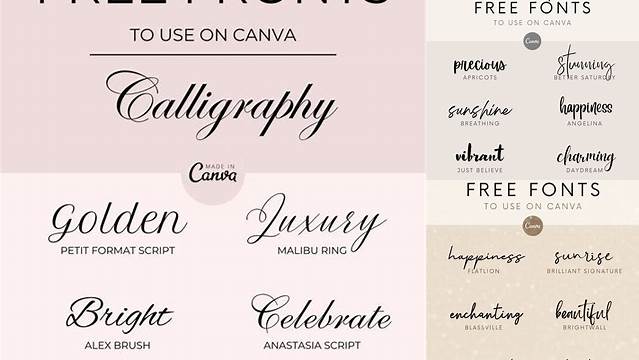
Free Calligraphy Fonts: The Best On Canva For Stunning Designs
Hey guys! Are you looking to add a touch of elegance and personality to your designs? Calligraphy fonts are a fantastic way to do just that. And guess what? Canva, the super user-friendly design platform, offers a ton of amazing free calligraphy fonts. But with so many options, it can be a bit overwhelming to choose the perfect one. That's why I've put together this guide to help you discover the best free calligraphy fonts on Canva for your next project.
Why Use Calligraphy Fonts?
Before we dive into specific fonts, let's quickly talk about why calligraphy fonts are so awesome. Calligraphy fonts, with their flowing lines and elegant curves, can instantly elevate your designs. They add a sense of sophistication, creativity, and artistry that's hard to achieve with standard fonts. Whether you're designing wedding invitations, social media graphics, logos, or anything in between, calligraphy fonts can make your text stand out and capture attention. They evoke a sense of tradition and craftsmanship, while also injecting a personal and unique flair to your projects.
Calligraphy fonts are incredibly versatile. Depending on the style, they can convey different moods and feelings. A delicate, flowing script is perfect for romantic or feminine designs, while a bolder, more dramatic calligraphy font can add a touch of strength and sophistication. Calligraphy fonts are also excellent for adding emphasis to specific words or phrases. Imagine using a beautiful script font to highlight the names on a wedding invitation or to draw attention to a key message in a promotional graphic. The possibilities are truly endless. Furthermore, the use of calligraphy fonts can help you create a cohesive and visually appealing design. When used thoughtfully, they can tie together different elements of your design and create a harmonious overall look. They can complement other design elements, such as images, colors, and shapes, to create a visually stunning final product. For instance, pairing a modern sans-serif font with a classic calligraphy font can create a striking contrast that is both eye-catching and balanced. This interplay of different font styles adds depth and interest to your design, making it more engaging for your audience.
Top Free Calligraphy Fonts on Canva
Okay, let's get to the good stuff! I've rounded up some of the best free calligraphy fonts Canva has to offer. These fonts are all available for free within Canva, so you can start using them in your designs right away. I've tried to include a variety of styles, so you're sure to find something you love. Remember, the best font for your project will depend on the specific look and feel you're going for, so feel free to experiment and see what works best.
1. Great Vibes
Great Vibes is a classic calligraphy font that exudes elegance and sophistication. With its flowing strokes and graceful curves, it's perfect for wedding invitations, greeting cards, and any design that needs a touch of refinement. This font features beautiful connections between letters, giving it a natural and handwritten feel. It strikes a balance between formality and approachability, making it a versatile choice for a wide range of projects. Whether you are designing a romantic-themed graphic or crafting a sophisticated logo, Great Vibes can add a touch of class and style. The consistent rhythm and elegant flourishes make it easy to read and visually appealing, ensuring your message is delivered with grace and clarity. Great Vibes is also excellent for adding a personal touch to your projects. Its handwritten style gives it a human feel, making it ideal for invitations, thank-you notes, and other personalized items. The font’s inherent charm makes it stand out, while its readability ensures your message is not lost in overly stylized lettering. This blend of personality and functionality is what makes Great Vibes a standout choice among calligraphy fonts. Moreover, its versatility allows it to pair well with other fonts, giving you the flexibility to create unique and dynamic designs. You can combine Great Vibes with a clean sans-serif font for a modern look or use it with a serif font for a more traditional feel. This adaptability makes it a valuable asset in your design toolkit, suitable for numerous applications and creative expressions.
2. Pacifico
If you're after a more casual and playful vibe, Pacifico is an excellent choice. This font has a retro, surf-inspired feel that's perfect for logos, posters, and social media graphics. Its rounded letterforms and flowing script evoke a sense of fun and relaxation, making it ideal for projects that aim to create a laid-back atmosphere. Pacifico’s friendly demeanor is particularly well-suited for designs targeting a younger audience or projects with a lighthearted theme. The font’s design is inspired by the 1950s American surf culture, lending it a vintage charm that is both nostalgic and trendy. This makes it a great option for designs that want to tap into a retro aesthetic or capture the spirit of the beach and summer. Pacifico's casual nature doesn't compromise its legibility; it remains easy to read even at smaller sizes, which is essential for various design applications. It stands out in headlines and logos, while also being practical for body text in posters and brochures. The balanced letter spacing and clear forms ensure that your message is conveyed effectively without sacrificing the font's playful character. Additionally, Pacifico's versatility extends to digital and print media, making it a reliable choice for a wide range of projects. Whether you're designing a website banner, a flyer, or a social media post, Pacifico can bring a touch of whimsy and personality to your work. Its distinct style ensures that your design will stand out, capturing attention and creating a memorable impression. By choosing Pacifico, you're not just selecting a font; you're choosing a mood and a style that resonates with your audience and enhances your brand's identity.
3. Yellowtail
Yellowtail is a beautifully crafted script font that combines vintage charm with modern appeal. It features a mix of thick and thin strokes, giving it a dynamic and eye-catching look. This font is great for logos, headings, and invitations where you want to make a statement. The flowing curves and elegant loops of Yellowtail add a touch of sophistication, while its slightly condensed form makes it suitable for both print and digital designs. Yellowtail is particularly effective when used in branding projects, as it helps to create a memorable and distinctive visual identity. Its vintage aesthetic evokes a sense of nostalgia and authenticity, which can be highly appealing to customers. The font's unique character shines through in logos, where it adds a touch of personality and craftsmanship. Its versatility also makes it a great choice for headlines and other display text, where it commands attention without being overwhelming. Furthermore, Yellowtail is designed with readability in mind, ensuring that your message is clear and easy to understand. The careful balance between style and function makes it a practical choice for a wide range of applications. Whether you're creating a wedding invitation, a poster, or a website header, Yellowtail can help you achieve a polished and professional look. The font’s inherent elegance makes it easy to pair with other fonts, giving you the flexibility to create visually appealing compositions. You can use it with a simple sans-serif font for a modern contrast or combine it with a classic serif font for a timeless feel. Yellowtail’s ability to adapt to different design styles makes it a valuable addition to your font library.
4. Playlist Script
For a more handwritten and personal touch, check out Playlist Script. This font looks like it was written with a brush, giving it a natural and organic feel. It's perfect for designs that need a touch of authenticity, such as signatures, quotes, and personalized cards. Playlist Script's informal and approachable style makes it a great choice for projects that aim to connect with the audience on a personal level. The font’s fluid strokes and slight imperfections add to its charm, creating a sense of spontaneity and creativity. This makes it particularly well-suited for designs that want to convey a sense of warmth and authenticity. Playlist Script excels in settings where a personal touch is valued, such as handwritten notes, social media posts, and event invitations. Its casual elegance makes it stand out without being overly formal, allowing your message to come across as genuine and heartfelt. The font is also highly versatile, working well in both print and digital formats. Whether you're creating a custom greeting card or designing a website header, Playlist Script can help you achieve a unique and personalized look. Its readability is excellent, ensuring that your text remains clear and easy to understand despite its artistic flair. Moreover, Playlist Script’s ability to pair with other fonts opens up a wide range of design possibilities. You can combine it with a bold sans-serif font for a modern contrast or use it alongside a classic serif font for a more traditional feel. This flexibility makes Playlist Script a valuable asset in your design toolkit, allowing you to create compositions that are both visually appealing and emotionally resonant. By choosing Playlist Script, you’re opting for a font that brings personality and character to your projects, making your designs stand out and leaving a lasting impression.
5. Moonlights On Earth
Moonlights On Earth is a whimsical and elegant calligraphy font that's perfect for adding a touch of magic to your designs. With its delicate strokes and charming flourishes, this font is ideal for projects that need a touch of fantasy or romance. Think fairy tale-themed designs, children's book illustrations, or dreamy wedding invitations. Moonlights On Earth's ethereal quality makes it stand out, creating a visual experience that is both captivating and enchanting. The font’s flowing lines and graceful curves evoke a sense of wonder, making it a perfect choice for projects that aim to transport the audience to another world. Its elegance doesn't compromise its legibility, ensuring that your message is conveyed clearly while maintaining a whimsical flair. This balance makes it suitable for both display text and shorter body text, allowing you to create cohesive and engaging designs. Furthermore, Moonlights On Earth is versatile enough to be used in a variety of applications, from digital graphics to print materials. Whether you're designing a social media campaign or creating a custom invitation, this font can help you achieve a magical and memorable look. Its ability to pair with other fonts provides additional creative opportunities. You can combine it with a clean, modern sans-serif font to create a contrast that highlights its unique character or use it with a more ornate serif font to enhance its fairytale aesthetic. The versatility of Moonlights On Earth makes it a valuable tool for designers looking to add a touch of whimsy to their projects. By choosing this font, you’re not just selecting a typeface; you’re choosing to infuse your designs with a sense of enchantment and delight, making them truly special and unforgettable.
Tips for Using Calligraphy Fonts
Now that you've got some great fonts to choose from, here are a few tips for using calligraphy fonts effectively:
- Use sparingly: Calligraphy fonts are best used for headings, titles, and short phrases. Overusing them can make your design look cluttered and difficult to read.
- Pair with a simpler font: Calligraphy fonts pair well with simpler fonts like sans-serif or serif fonts. This creates a nice contrast and makes your design more balanced.
- Consider the context: Choose a calligraphy font that fits the overall tone and style of your design. A formal script might not be the best choice for a casual project, and vice versa.
- Adjust the spacing: Pay attention to the letter spacing and line height. Calligraphy fonts often need a little extra space to breathe.
- Experiment! Don't be afraid to try different fonts and combinations to see what works best for your project.